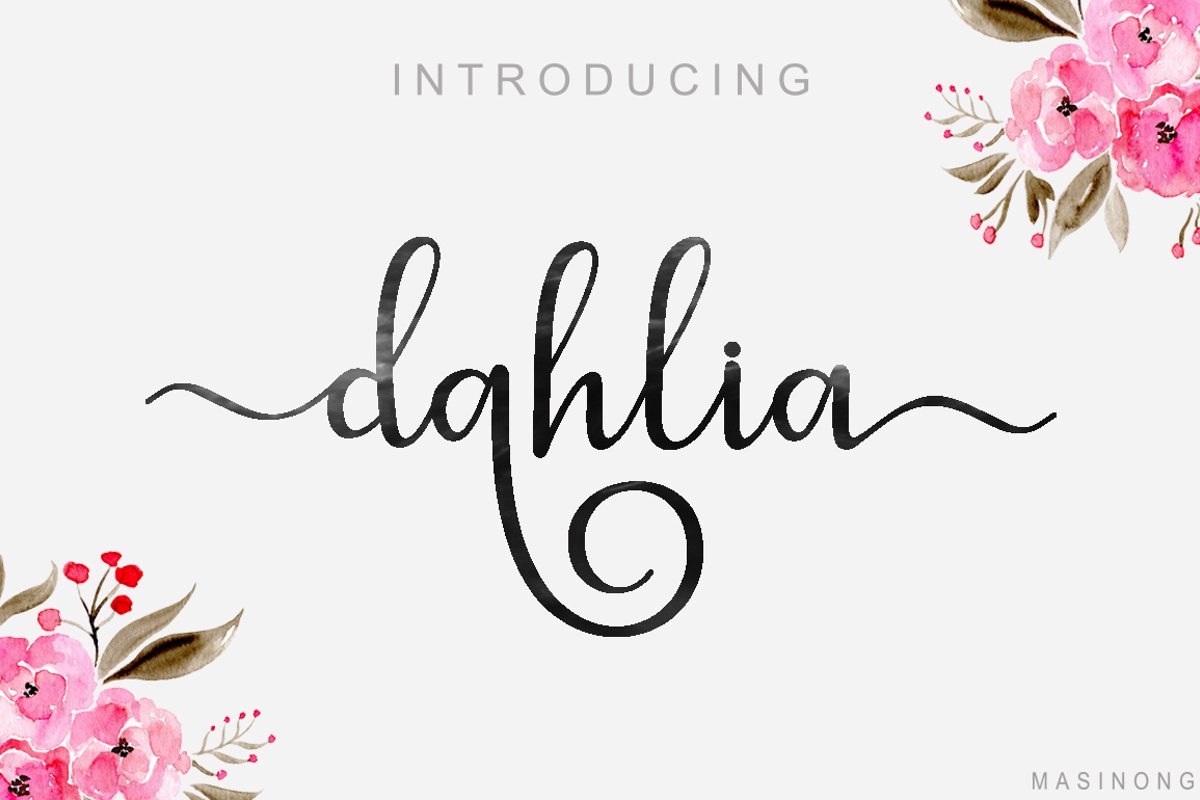
The Black Dahlia - Vintage Script Font, with curves and lines are so soft that makes this font look pretty and realistic.
With 290 Characters, The Black Dahlia is perfect to all your design project, like invitation card, product logo, food brand, logo and much more.
The Black Dahlia also supported with Stylistic Set 1-2, Ligature, and Stylistic Alternate, that will help you get beautiful style with your own creation.